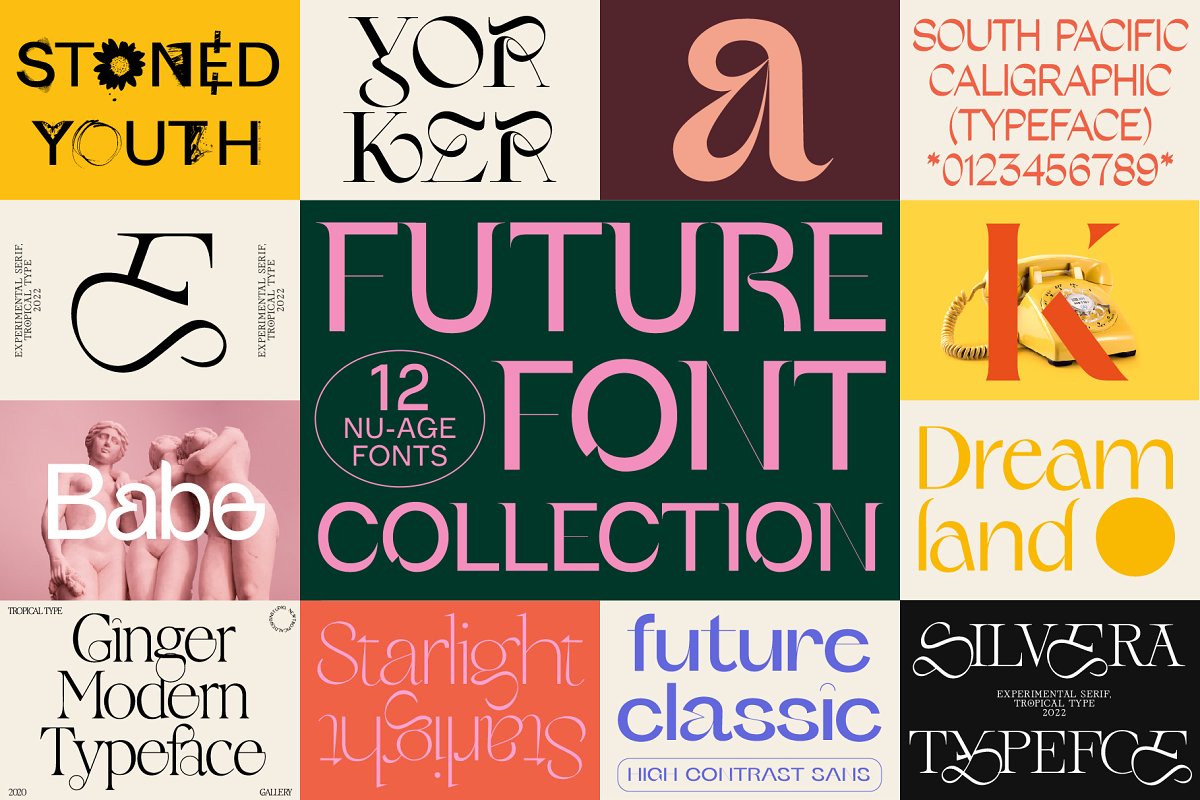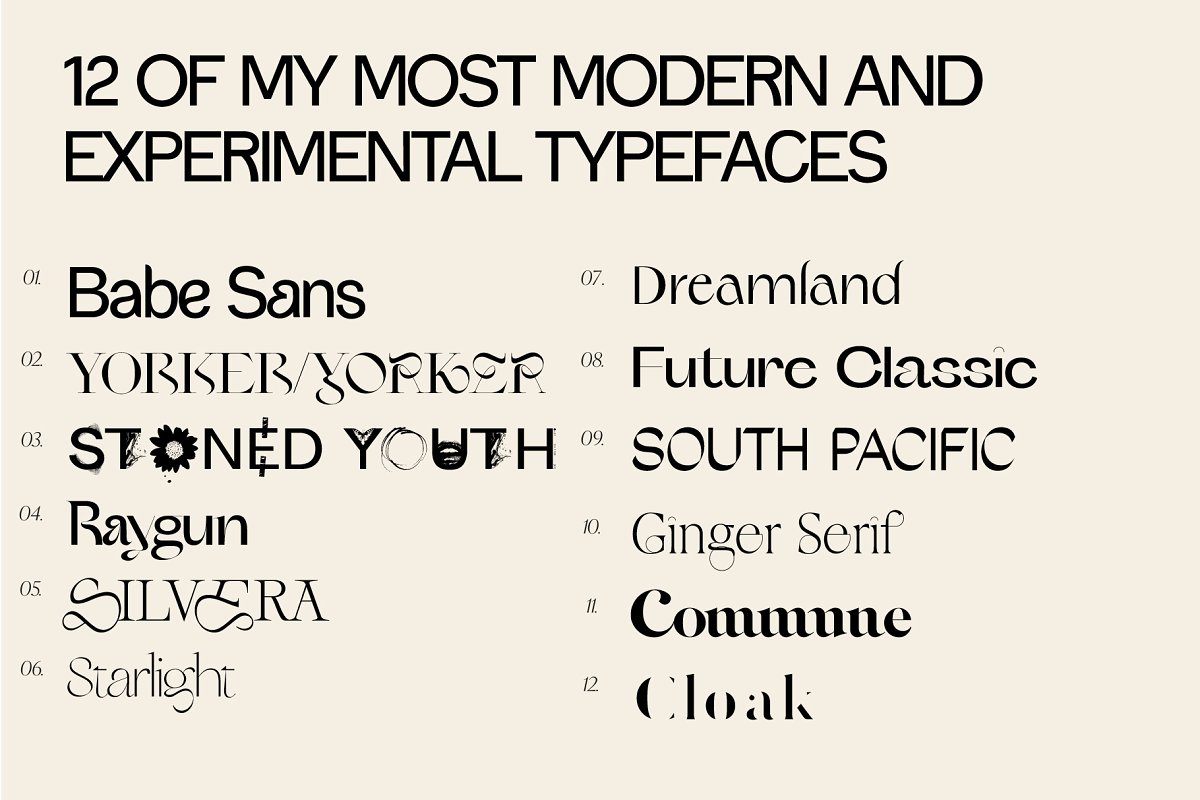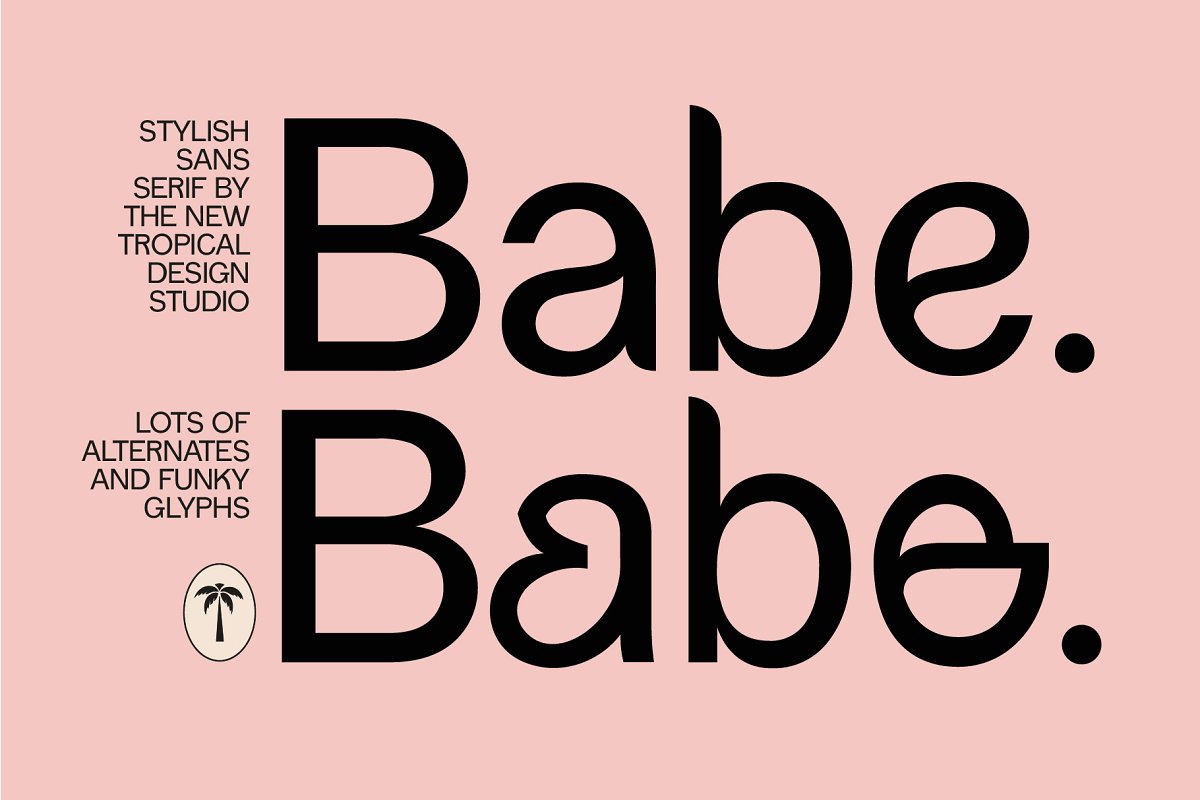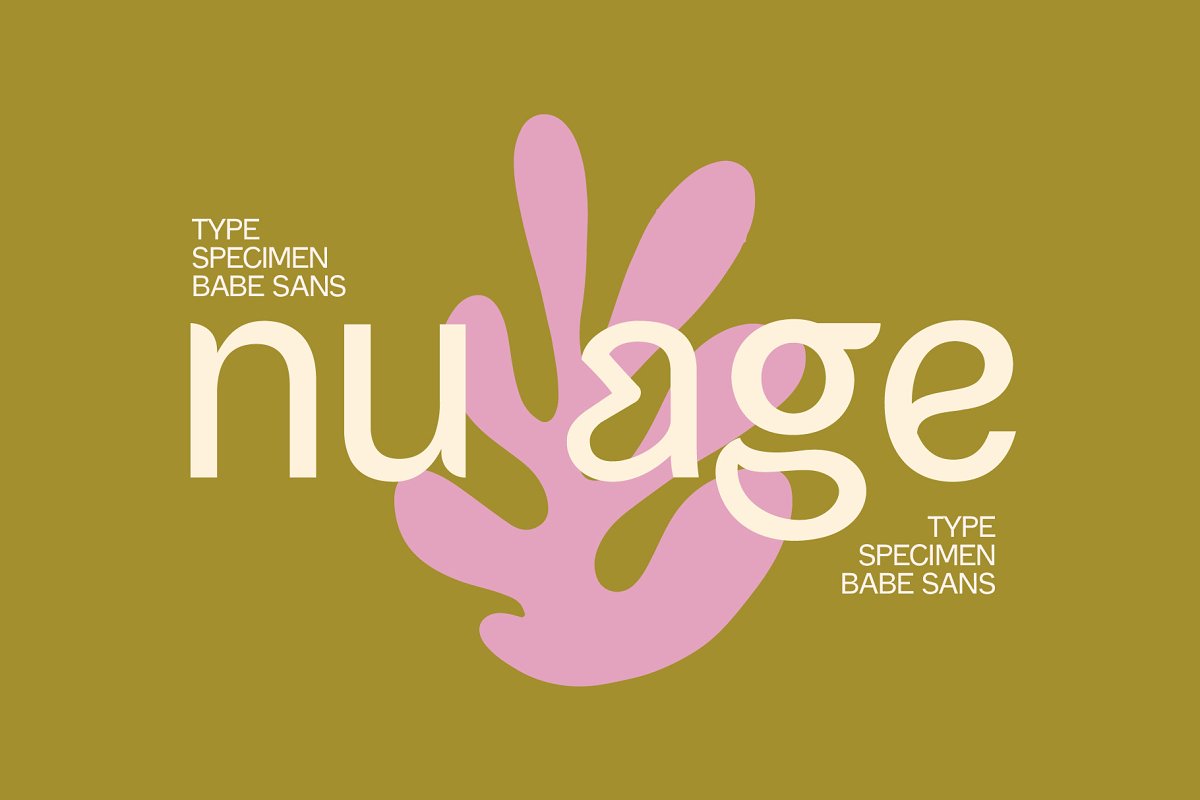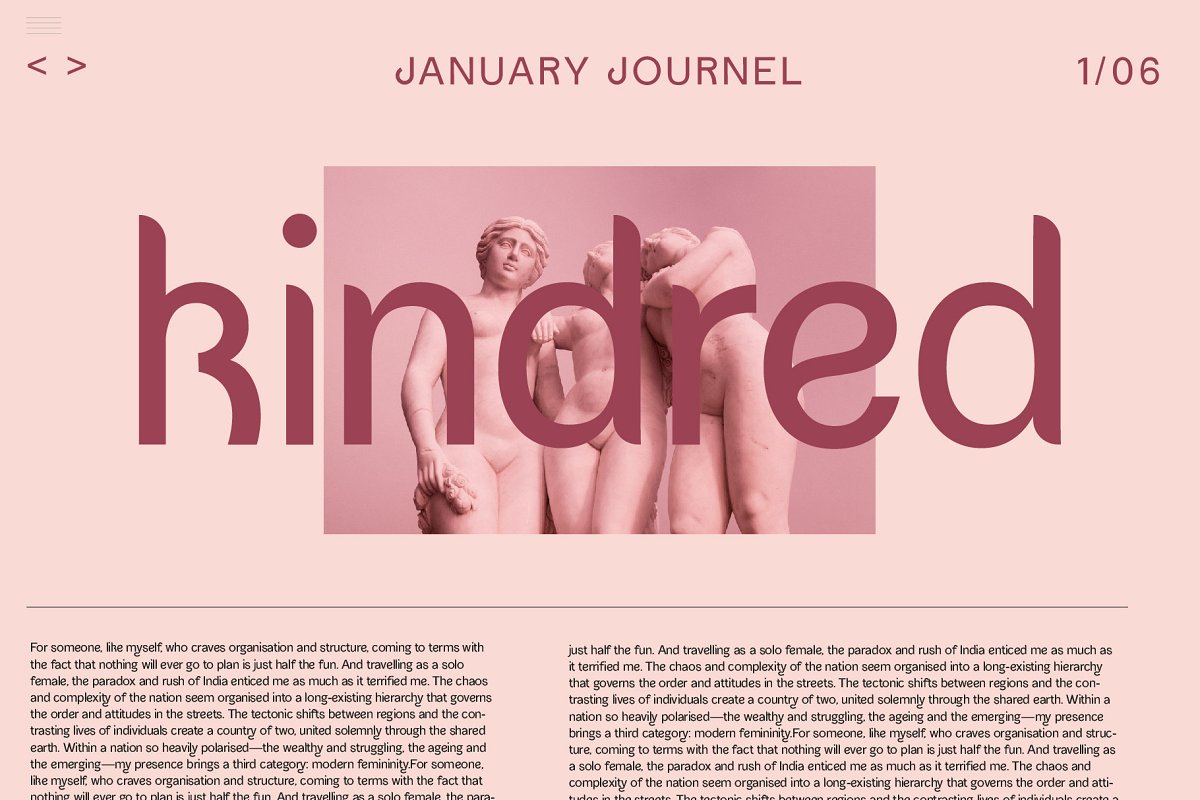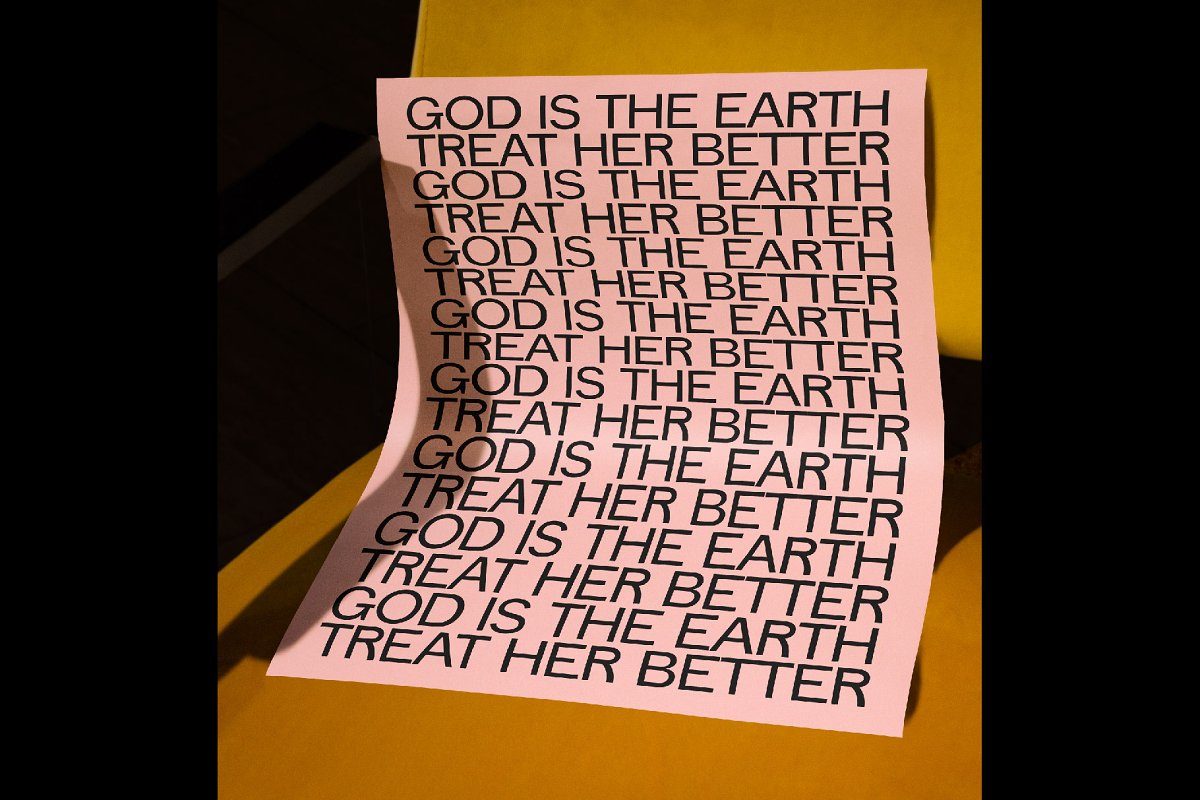
About the The Future Font Collection
The Future Font Collection is 12 of my more modern, futuristic and experimental display typefaces, All the wild and weird ones in one place! If you have bought one of my previous bundles before, double check you are not doubling up! By getting this bundle you are saving 80%!!!!Fonts included:Babe SansYorkerStoned YouthRaygunSilveraStarlightDreamlandFuture ClassicSouth PacificGingerCommuneCloakTo see more detailed descriptions of each font see my store for individual products